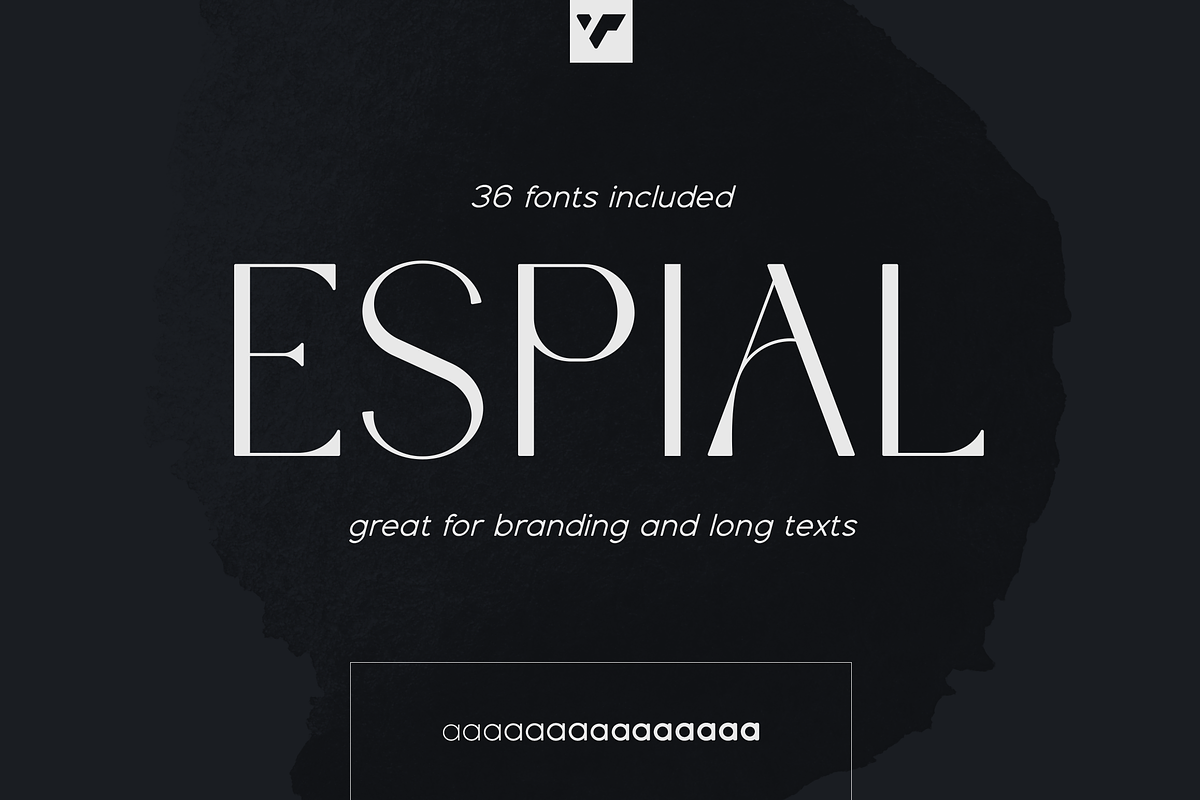
Espial Typeface - 36 Fonts Free Download is an extensive and versatile font collection that includes 36 distinct styles. Whether you're working on a corporate project, creative design, branding, or editorial layouts, this font family offers an incredible range of weights, styles, and variations to suit any need.
From clean, modern sans-serifs to more decorative display fonts, the Espial typeface gives you the flexibility to experiment and create with confidence. Its wide array of styles ensures that you can maintain visual consistency across different media, from print to digital.